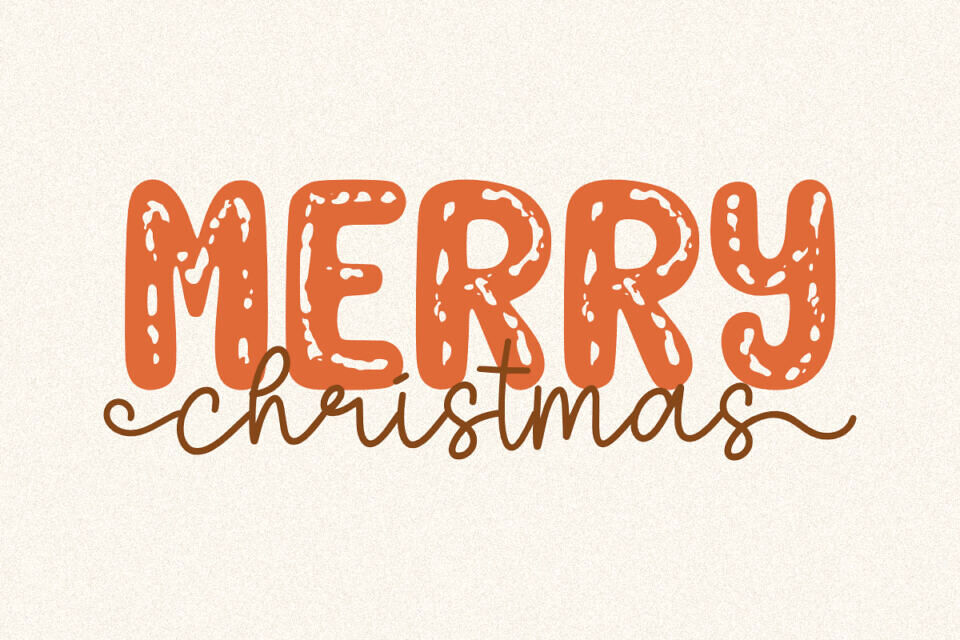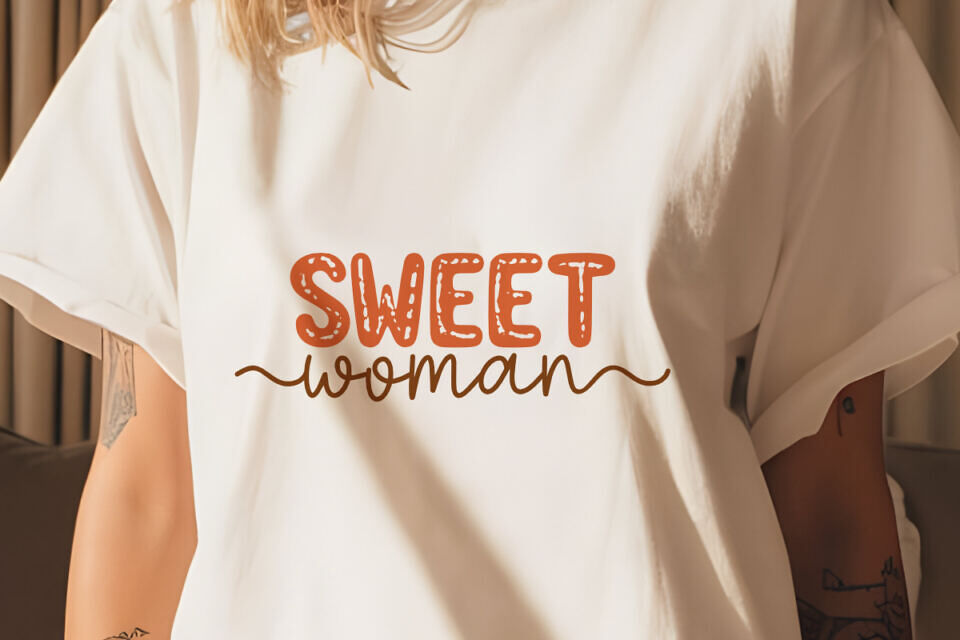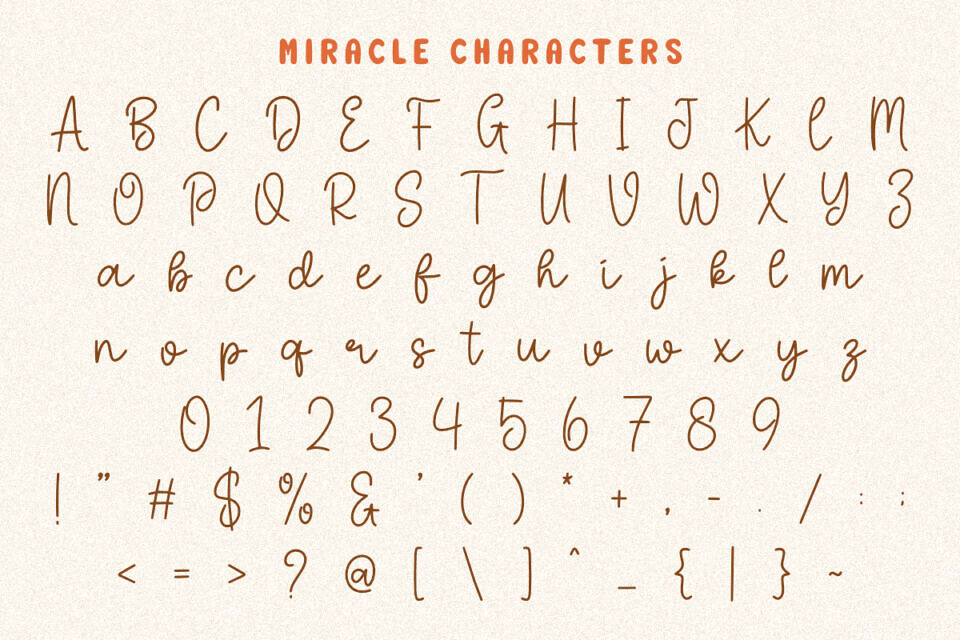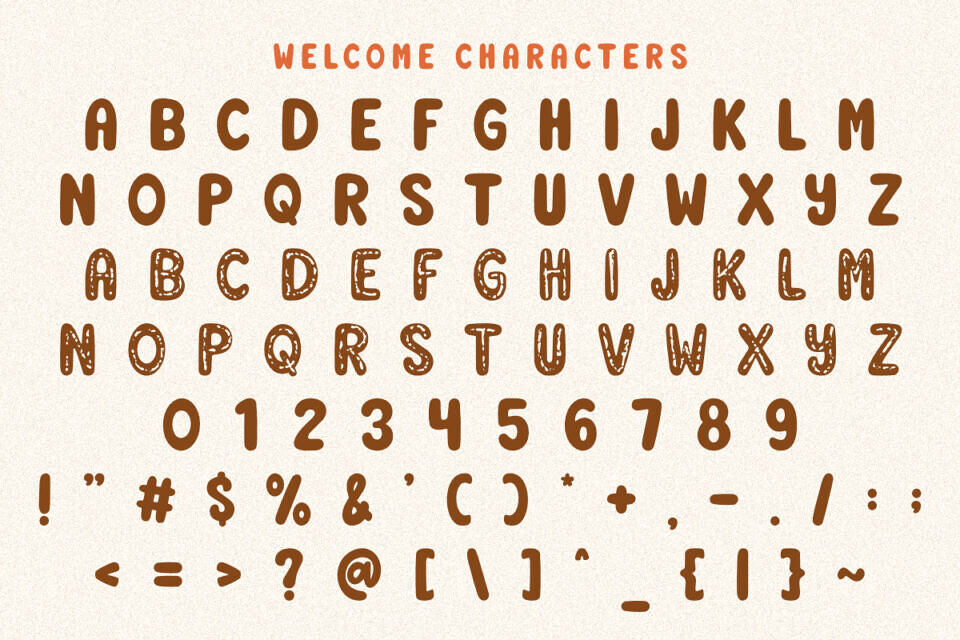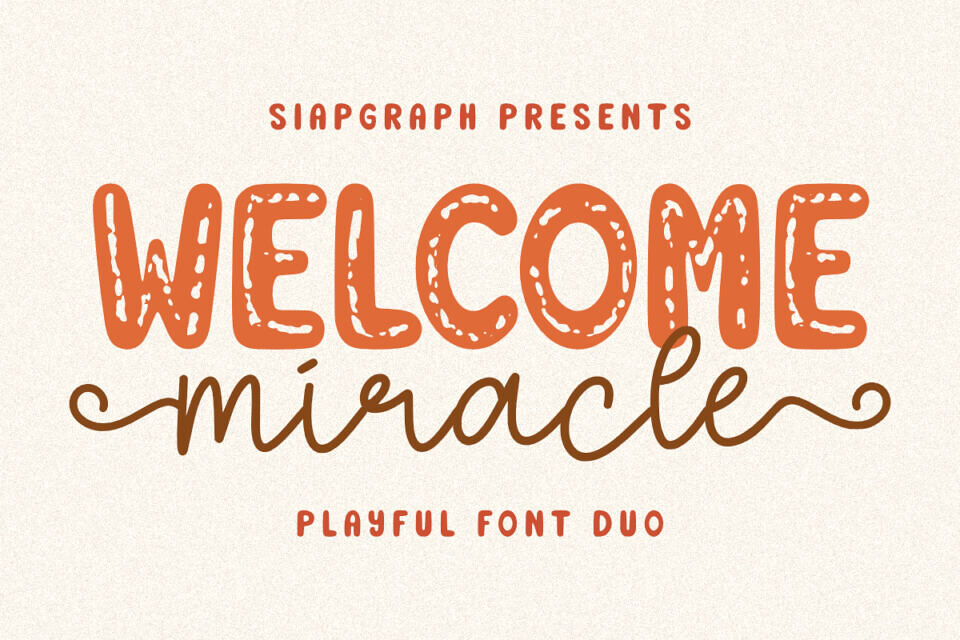
Welcome Miracle Duo Font
Welcome Miracle is a playful font duo that perfectly blends a bold decorative sans serif with a smooth and elegant script. This combination makes it incredibly versatile for a variety of design projects.
Use it for branding, invitations, greeting cards, t-shirts, posters, stickers, packaging, quotes, logos, and social media graphics. With its charming and creative style, Welcome Miracle will add warmth, joy, and personality to every design you create.